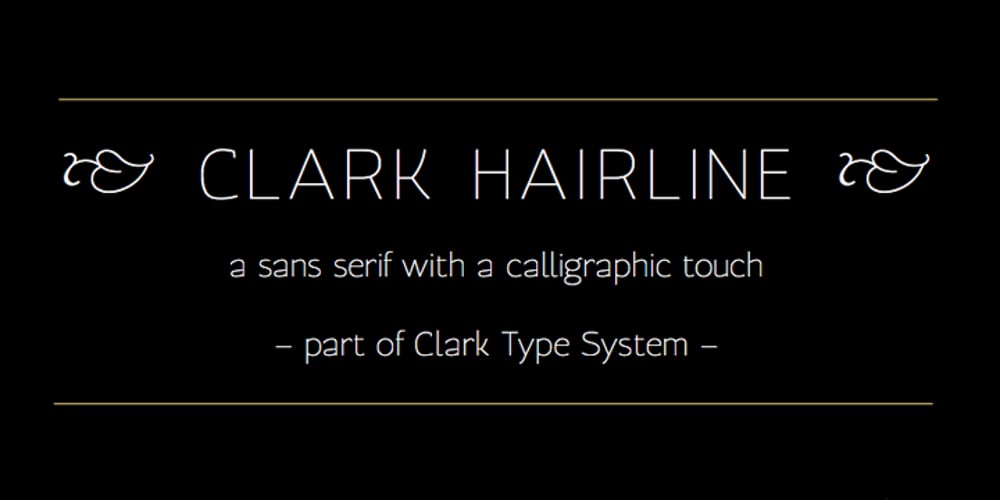
Clark
Clark font
Clark Font Family was designed by Santiago Orozco and published by Typemade. Clark contains 1 styles and family package options. Clark Hairline is a sans serif with calligraphic touch, it is part of a large Type System still in production. The main idea is to create a sans serif for use as a text face.